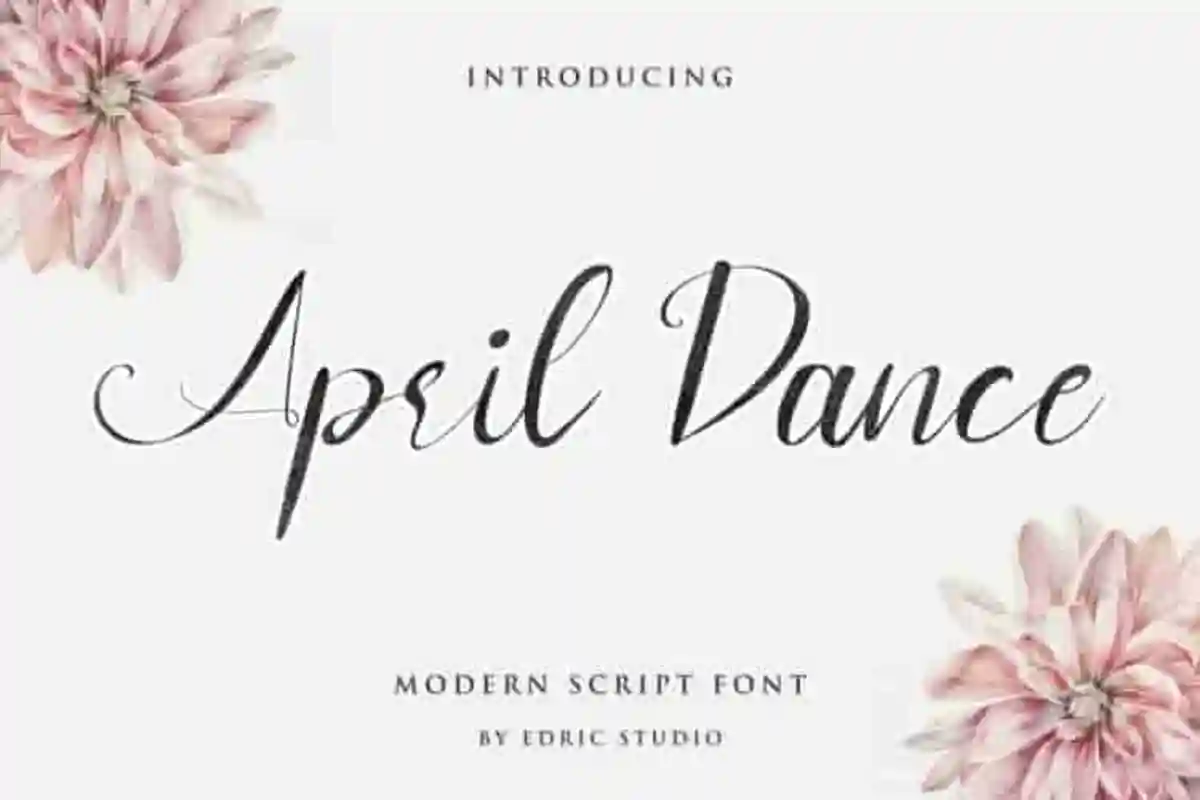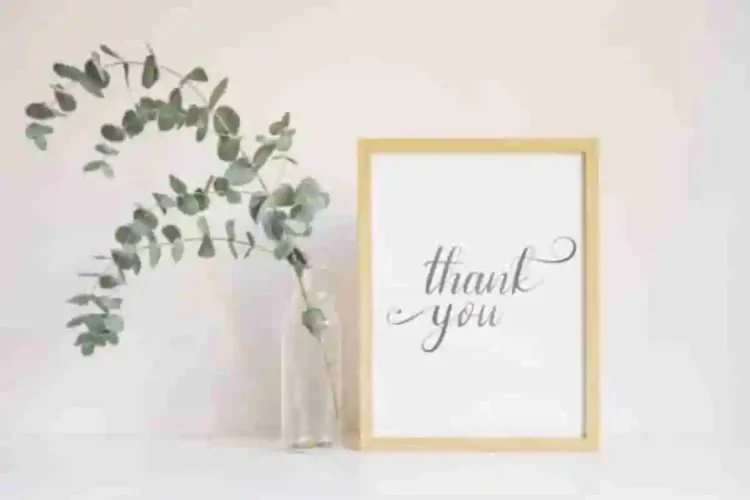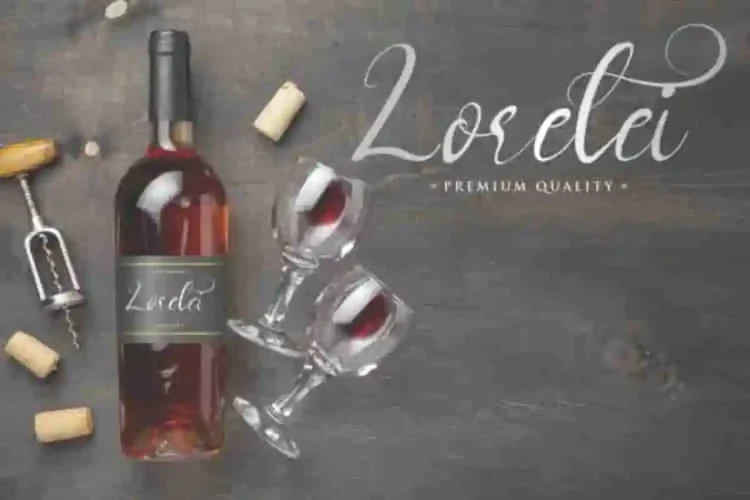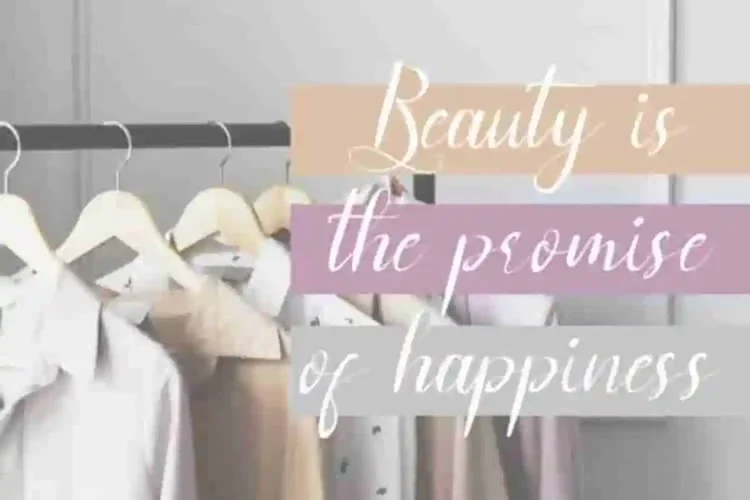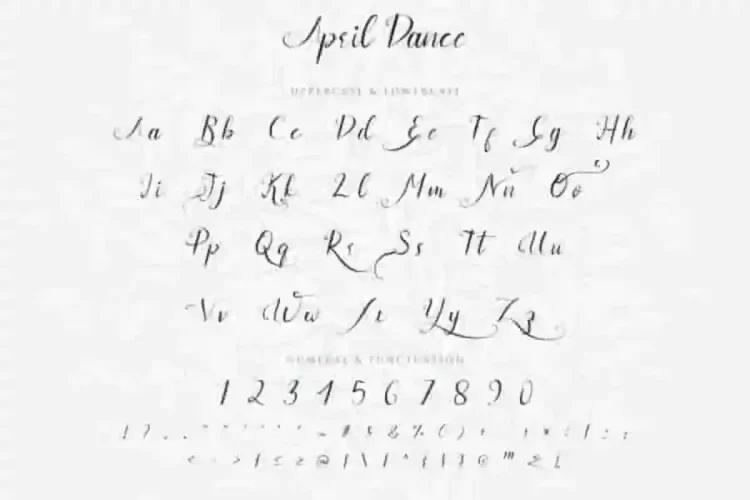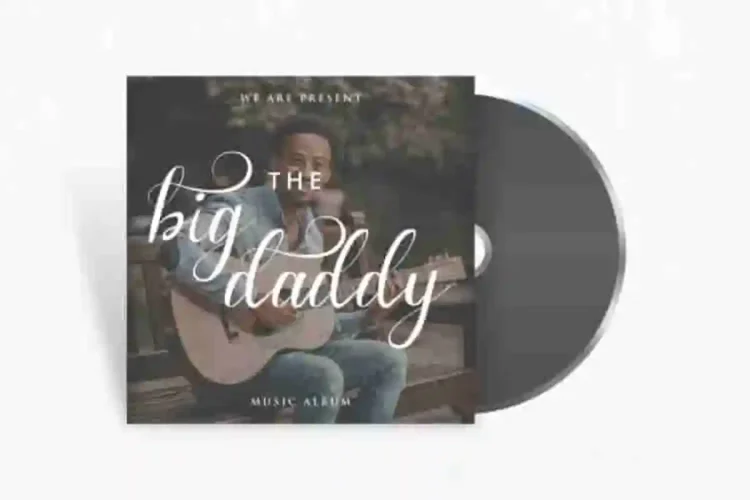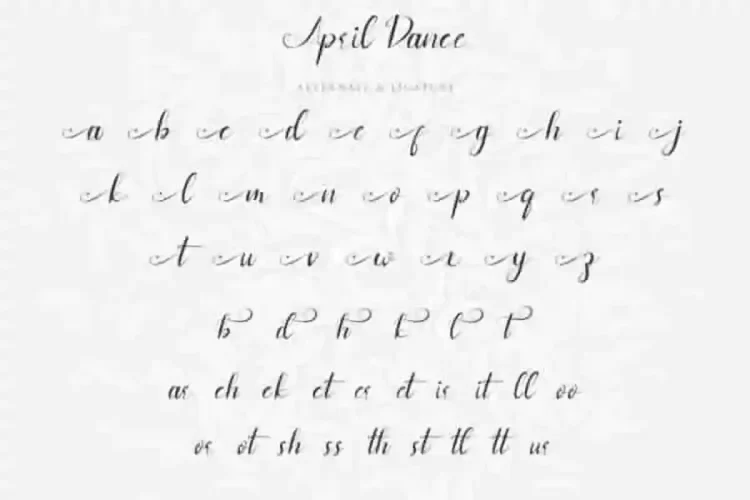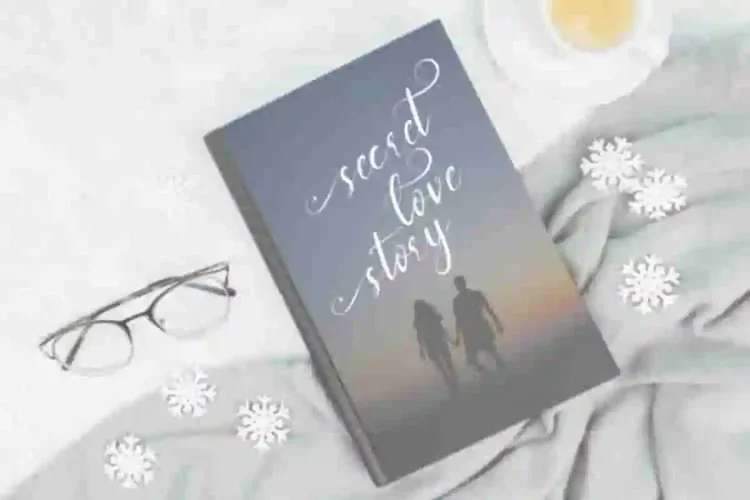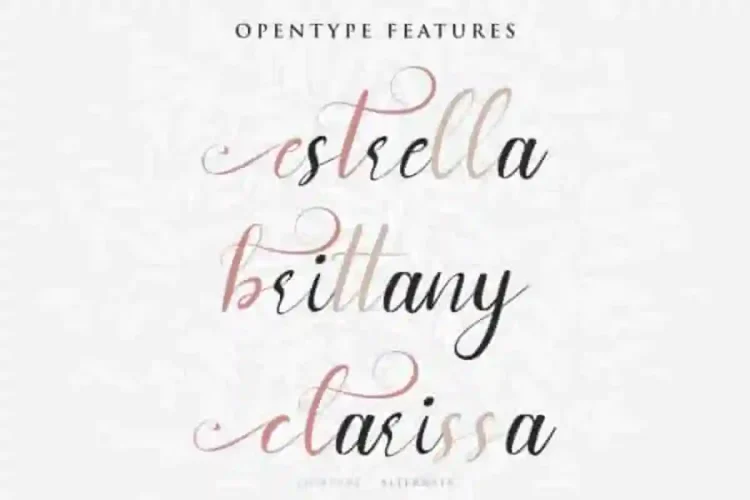
April Dance Calligraphy Script Font
April Dance Calligraphy Script Font is a stunning calligraphy script font with beautiful handwritten style. One of the talented artists from Edric Studio in Indonesia. By our designers : Widi and Suci.
Bring elegance and charm to your designs with April Dance Calligraphy Script Font, a graceful typeface inspired by handwritten beauty. With smooth curves, delicate strokes, and a flowing rhythm, this script font captures the essence of romance and sophistication. It has a stunning characters set, perfectly managed with well spaced and kerning.